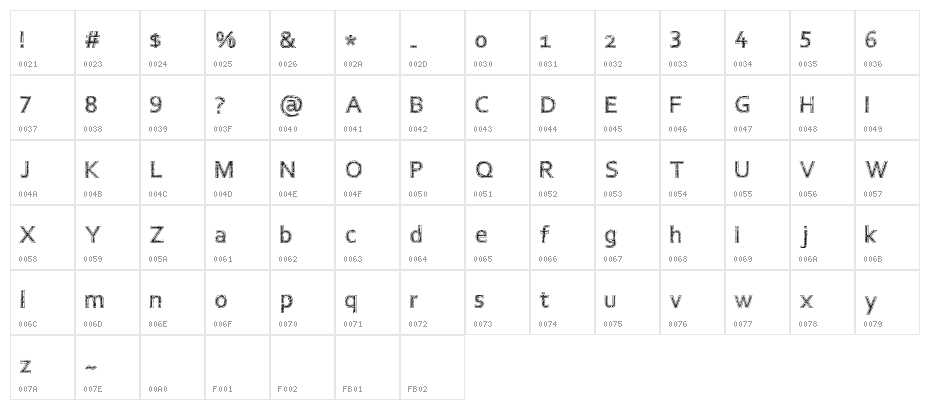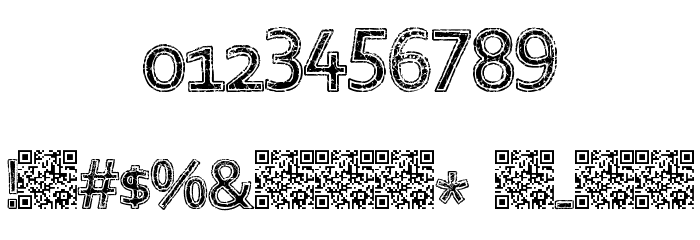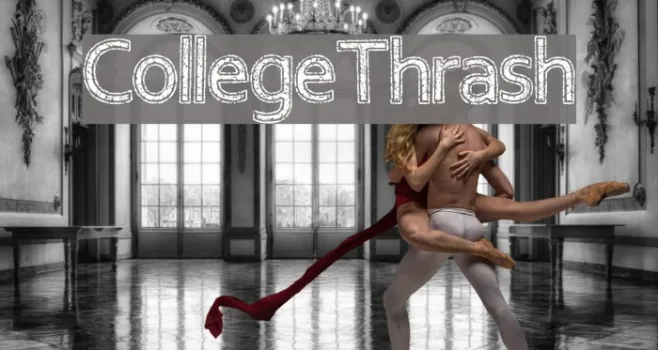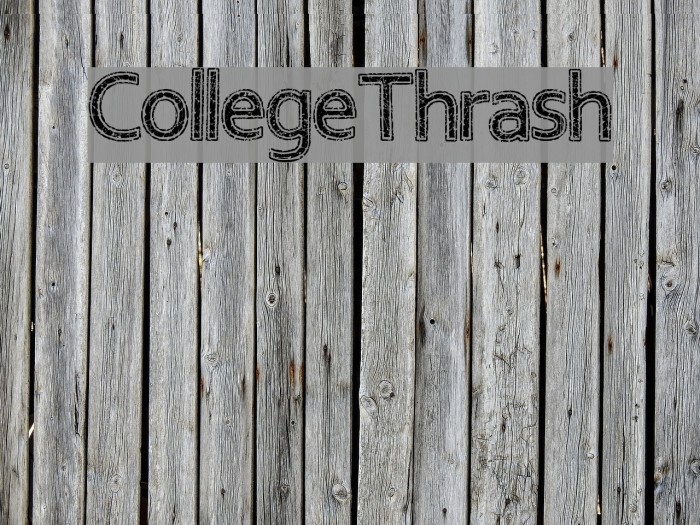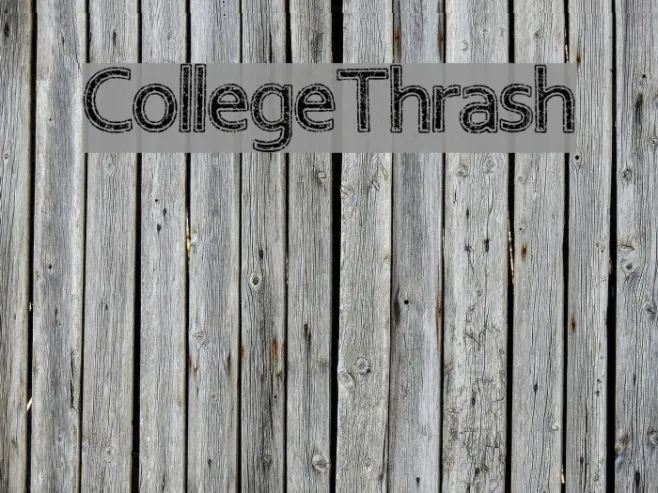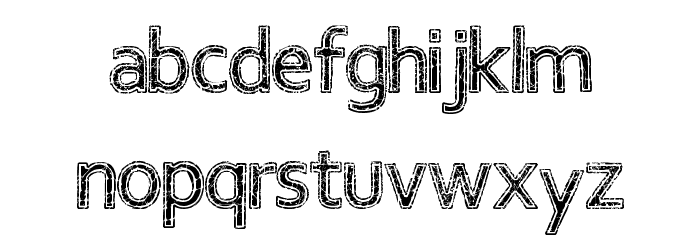
CollegeThrash Font
CollegeThrash Description
This font features a bold, distressed style that gives it a rugged and edgy appearance. The letters are uppercase and lowercase, with numbers and a selection of special characters. The texture is reminiscent of worn-out or grunge aesthetics, making it ideal for designs that require a raw, authentic feel. The strokes are thick, with a high contrast between the filled and distressed areas, adding to its visual impact. The character spacing is normal, ensuring readability despite its decorative nature. This font is perfect for projects that aim to convey a sense of rebellion or vintage charm.
| Overall Style | Vintage, Grunge |
| Proposed Projects | Ideal for album covers, posters, branding for edgy or vintage-themed products, and any design needing a bold statement. |